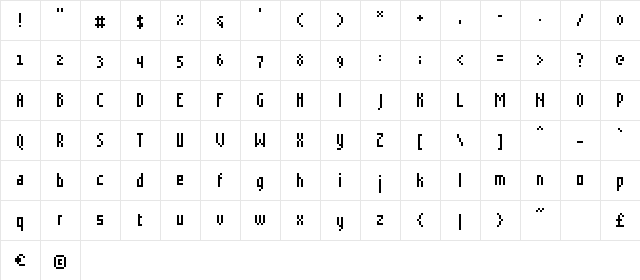
Grudblitter Regular
Design Context for Grudblitter Typeface
Grudblitter takes a measured approach to typography — its balanced proportions and neutral character make it a reliable workhorse for both digital and print work.